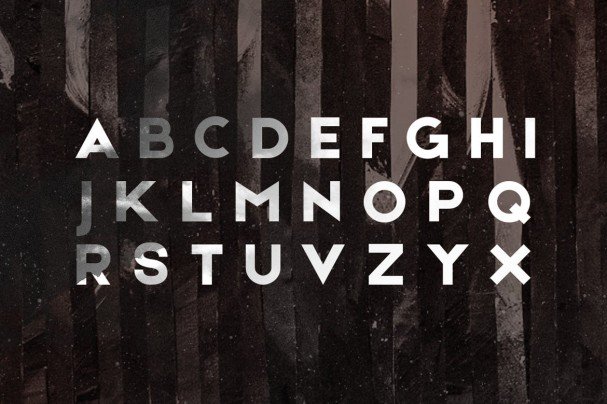
Etna Font
Right here is the Etna Font that is present inside the Google Fonts. This is a noir typeface that is similar to the Umpqua font and it is used in graphic designing. The font is available in every day, thin, and maximum formidable versions.
This font can be very similar to a quicksand font that capabilities a gift-day layout. This is a clean typeface that is genuinely similar to the font.